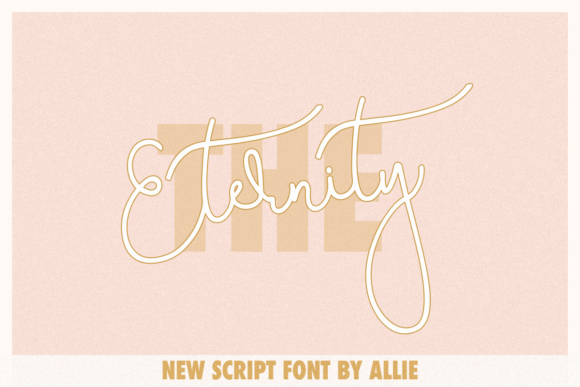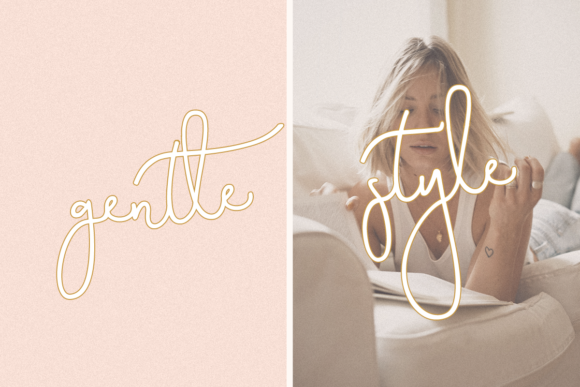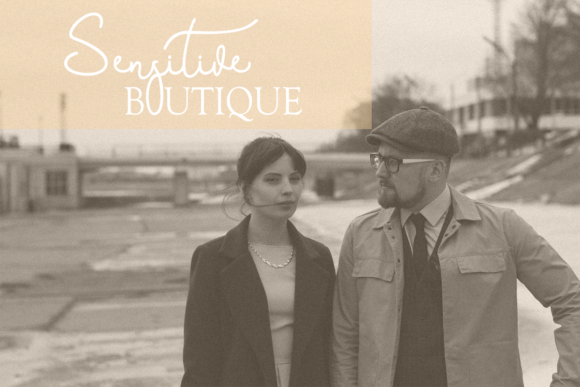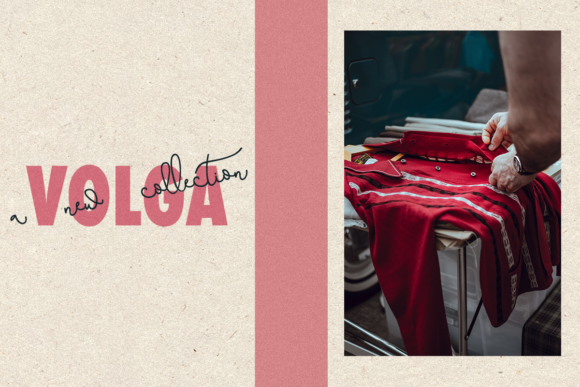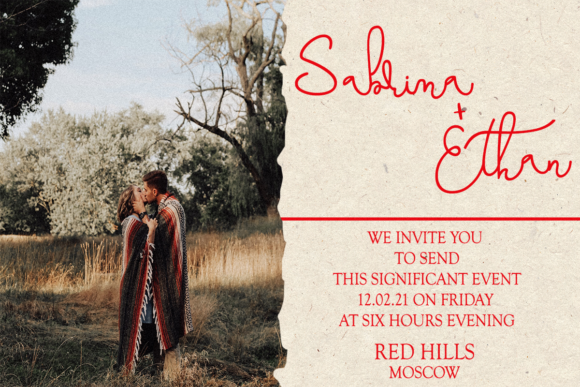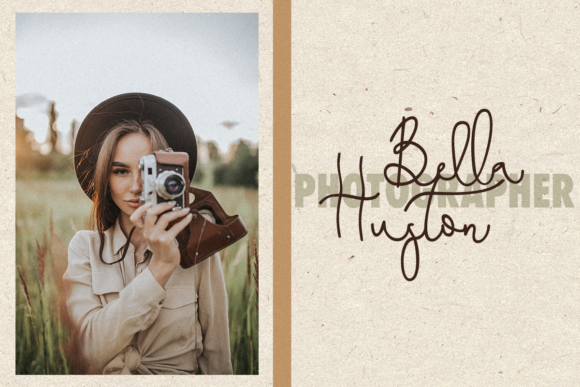
Eternity Font
About Eternity Font
Eternity is a flowing and stylish handwritten font. No matter the topic, this font will be an incredibly asset to your fonts’ library, as it has the potential to elevate any creation.